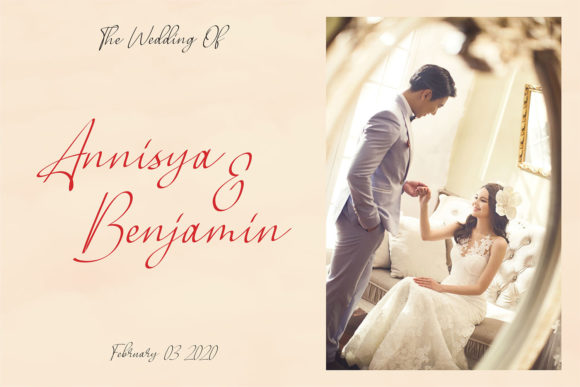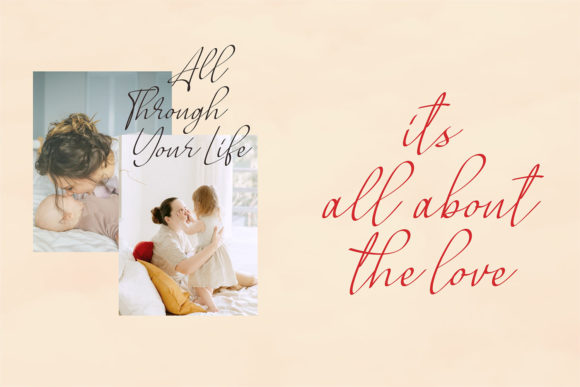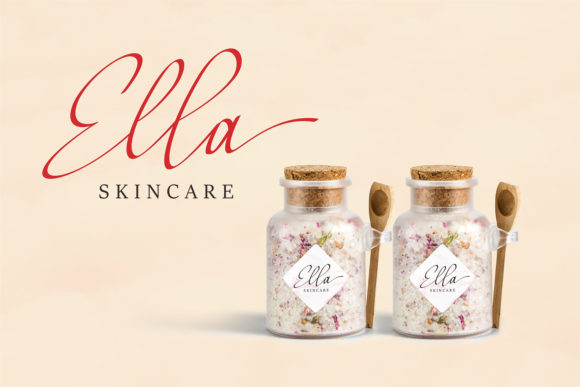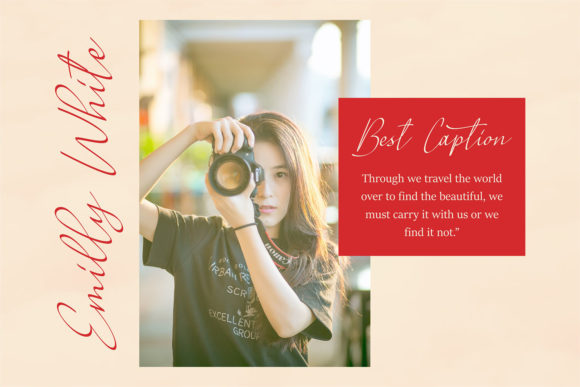
Introducing Allianta Font: The Epitome of Elegance and Sophistication
In the realm of typography, few fonts have managed to capture the essence of elegance and sophistication as effortlessly as Allianta. This exquisite handwritten font is a masterclass in design, blending traditional calligraphic influences with a modern twist to create a truly unique and captivating typeface. Whether you’re a designer, crafter, or simply someone who appreciates the art of beautiful writing, Allianta is sure to leave a lasting impression.
The Story Behind Allianta
Allianta’s story begins with a passion for calligraphy and a desire to create a font that would evoke the same emotions and reactions as a beautifully handwritten piece of art. The designer poured their heart and soul into crafting a typeface that would be both classic and contemporary, elegant and approachable. The result is a font that feels like it could have been plucked straight from the pages of a luxury brand’s advertising campaign or a high-end fashion magazine.
What Makes Allianta So Special?
So, what sets Allianta apart from other fonts in its class? For starters, its handcrafted nature gives it a level of personality and character that’s hard to find in more traditional typefaces. Each letter has been carefully designed to flow seamlessly into the next, creating a sense of movement and fluidity that’s both visually appealing and engaging. Additionally, Allianta’s calligraphic influences add a touch of sophistication and glamour, making it perfect for projects where elegance is key.
Key Features of Allianta Font
- Handwritten with love: Allianta is a true handwritten font, crafted with precision and care to ensure that every letter, every curve, and every flourish feels authentic and genuine.
- Classy calligraphic influences: Allianta’s roots in traditional calligraphy are evident throughout, adding a level of sophistication and elegance that’s hard to find elsewhere.
- Contemporary and fresh: Despite its classic influences, Allianta feels refreshingly modern and contemporary, making it perfect for projects that require a touch of innovation and creativity.
- Perfect for branding and advertising: Allianta’s unique blend of elegance and approachability makes it an excellent choice for branding and advertising projects, where standing out from the crowd is crucial.
How to Use Allianta in Your Projects
Allianta is an incredibly versatile font, suitable for a wide range of projects and applications. Here are a few ideas to get you started:
- Logo design: Allianta’s elegant, cursive script makes it perfect for logo design, particularly for brands that want to convey a sense of luxury and sophistication.
- Wedding and event planning: Add a touch of romance and whimsy to your wedding or event planning projects with Allianta’s beautiful, handwritten script.
- Packaging and product design: Allianta’s unique blend of elegance and approachability makes it an excellent choice for packaging and product design, particularly for high-end or luxury brands.
- Digital marketing and advertising: Use Allianta to add a touch of sophistication and glamour to your digital marketing and advertising campaigns, helping you stand out in a crowded marketplace.
In conclusion, Allianta is a truly exceptional font that deserves a place in every designer’s toolkit. Its unique blend of elegance, sophistication, and approachability makes it perfect for a wide range of projects, from branding and advertising to packaging and product design. Whether you’re looking to add a touch of luxury to your projects or simply want to create something beautiful and eye-catching, Allianta is sure to deliver. So why wait? Fall in love with Allianta today and bring your projects to the highest levels!